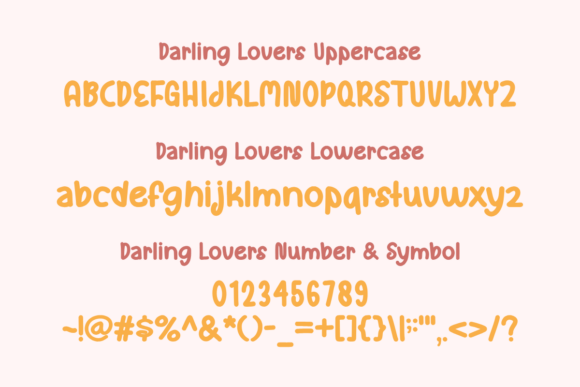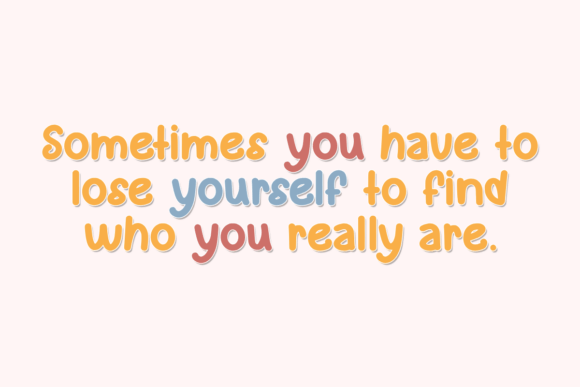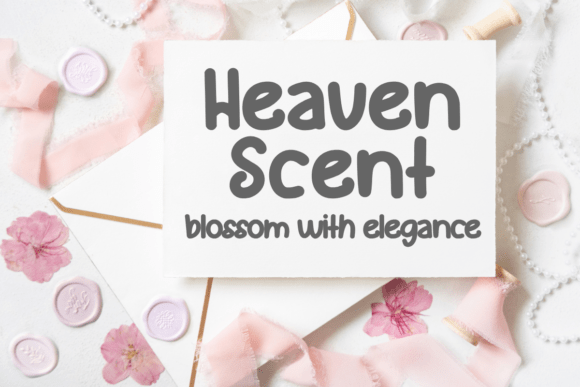
Introduction to Darling Lovers Font
Have you ever stumbled upon the perfect font that makes your creative project pop? For many designers, that moment of serendipity is what drives their passion. I still remember the time I discovered a quirky display font that added just the right touch to my friend’s birthday invitation. It was a high-quality font that elevated the entire design and made it truly special.
Today, I’m excited to share with you another fantastic font that’s sure to become your new favorite design resource: the Darling Lovers Font. This free download is perfect for adding a playful touch to your Cricut projects, logos, shirts, and more. With its transparent background, you can easily integrate it into your designs without any hassle.
Key Features of Darling Lovers Font
- High-quality, hand-drawn design perfect for creative projects, including invitations, greeting cards, and other design resources.
- Features a transparent background, allowing for easy customization and integration into various design projects.
- Designed with a romantic and whimsical touch, making it perfect for weddings, anniversaries, and other special occasions.
- Supports various font sizes and resolutions, making it suitable for both digital and print design projects.
Honest Review: Darling Lovers Font
I recently stumbled upon the Darling Lovers Font and I must say it’s been a great addition to my design arsenal. This font is perfect for any creative project that requires a touch of elegance and sophistication.
- High quality design that’s perfect for printing or digital use ✨
- Transparent background makes it easy to use in any design project ✨
However, there are a few limitations I’d like to mention:
- Only a limited number of font styles are available ⚠️
- No bold or italic font styles available ⚠️
Overall, I’m quite impressed with the Darling Lovers Font. It’s a great design resource for any project that requires a touch of whimsy and romance. While it may have its limitations, the quality of the font makes up for it. I’d definitely recommend it to anyone looking for a unique and elegant font for their next creative project.
To get the most out of the Darling Lovers Font, be sure to experiment with different font sizes and styles. You can also use the font in combination with other design elements to create a unique and eye-catching design. Additionally, be sure to use the font in a way that is consistent with your brand identity and design aesthetic.
The Darling Lovers Font is a versatile design resource that can be used in a wide range of contexts. Some common use cases include:
- Valentine’s Day cards and gifts
- Love-themed social media graphics
- Romantic dinner menus and recipes